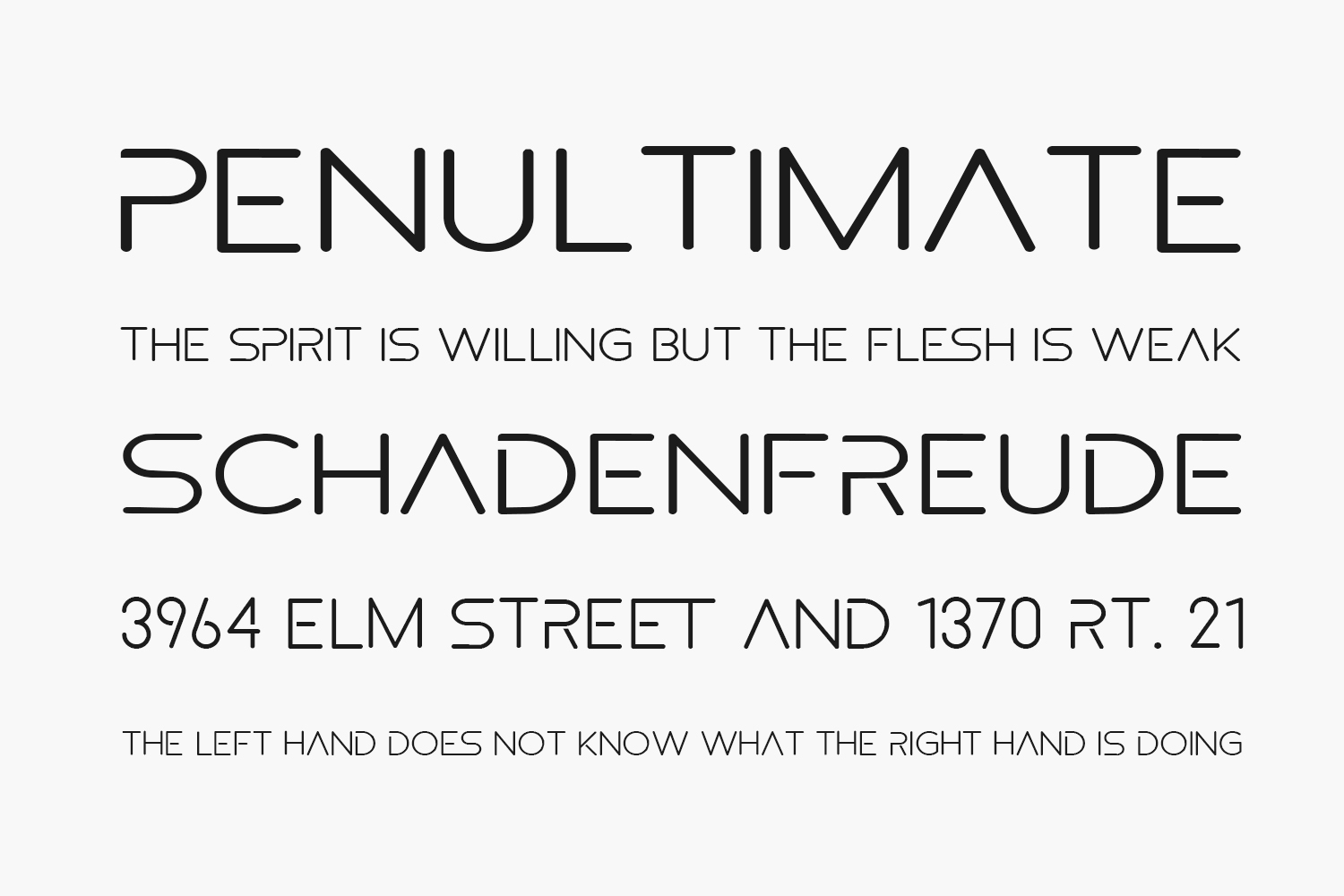
Astro Futuristic Free Font is a modern font designed with the golden ratio technique so that this font has a sophisticated style of space, minimalism is beautiful, so it would be perfect for all types of logos, printing techniques you can do embroidery, technology projects, screen printing etc. Astro Futuristic Free Font is free for personal use only. Please purchase the full version for commercial use.
Designed by Ridwan Fadilah